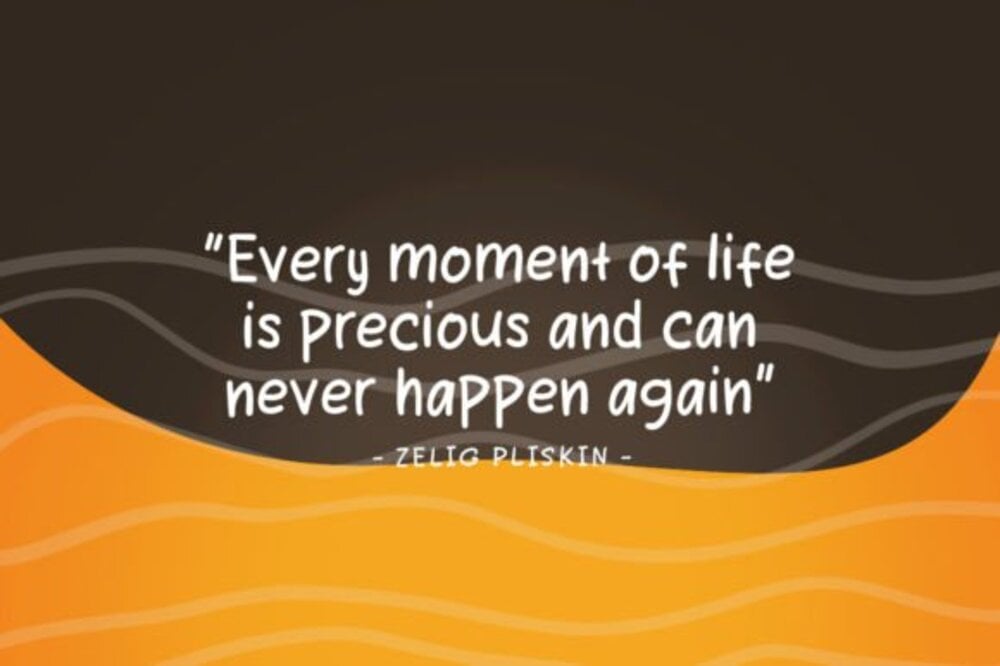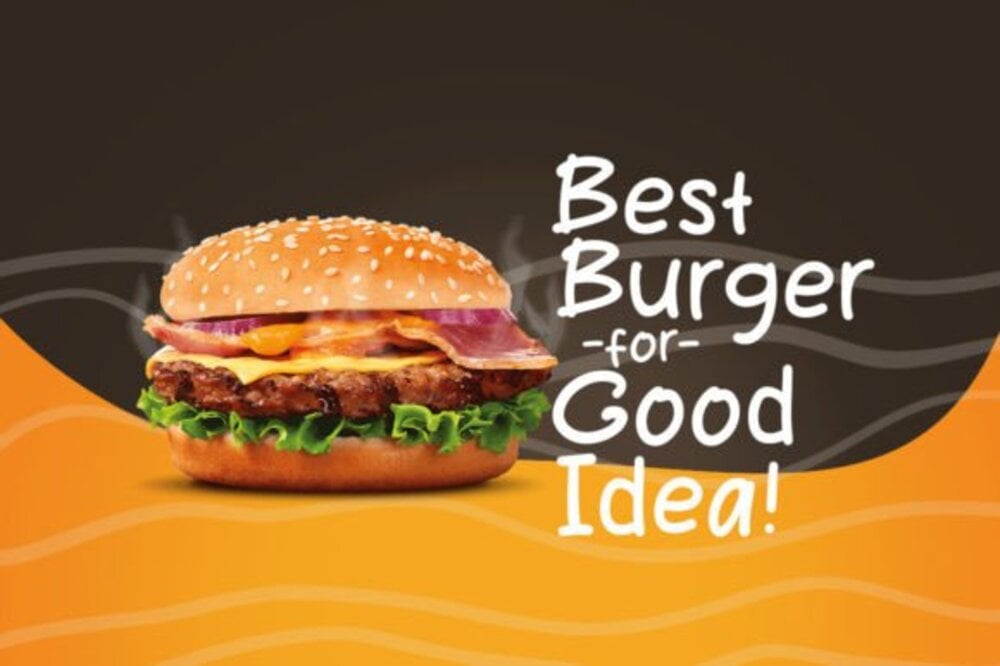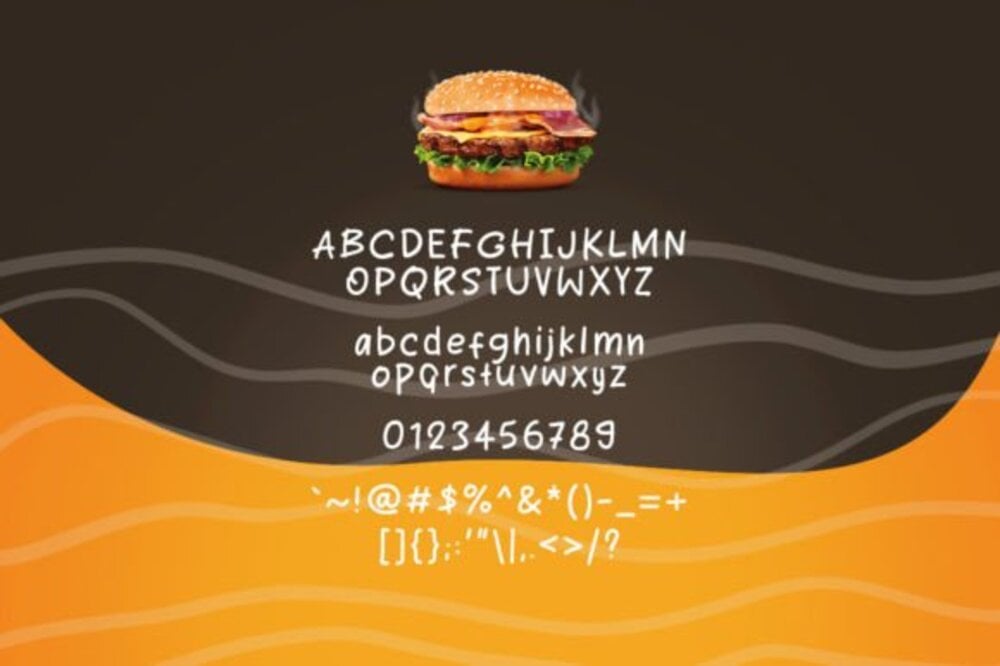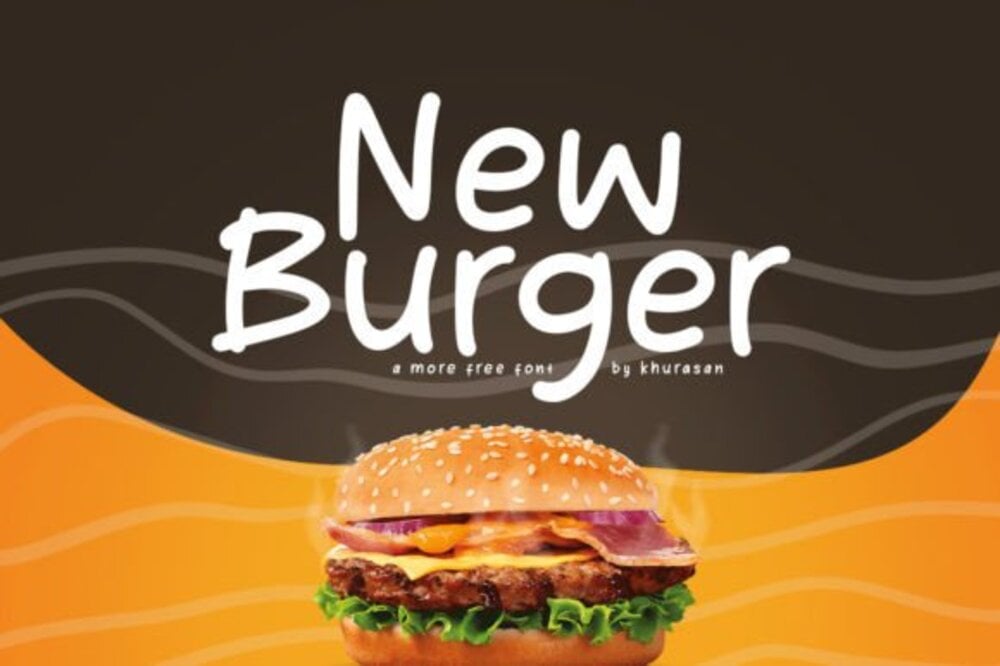
New Burger Font
New Burger is a bold and juicy typeface that brings a fresh, modern twist to any design. With its chunky, dynamic letters and playful energy, it’s perfect for food branding, menus, and eye-catching posters. Inspired by the fun and indulgence of burgers, this font delivers personality and flavor, making your projects stand out with a mouthwatering, irresistible appeal.